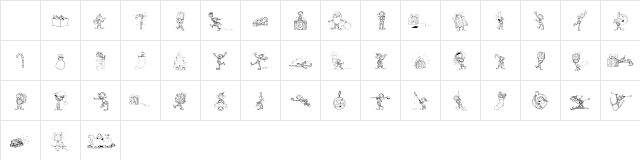
Complete CCSantasLittleHelpers Regular glyph index. Displaying only characters natively supported by CCSantasLittleHelpers Regular font.
CCSantasLittleHelpers is a composed and adaptable typeface that performs quietly and consistently across a wide range of design contexts.